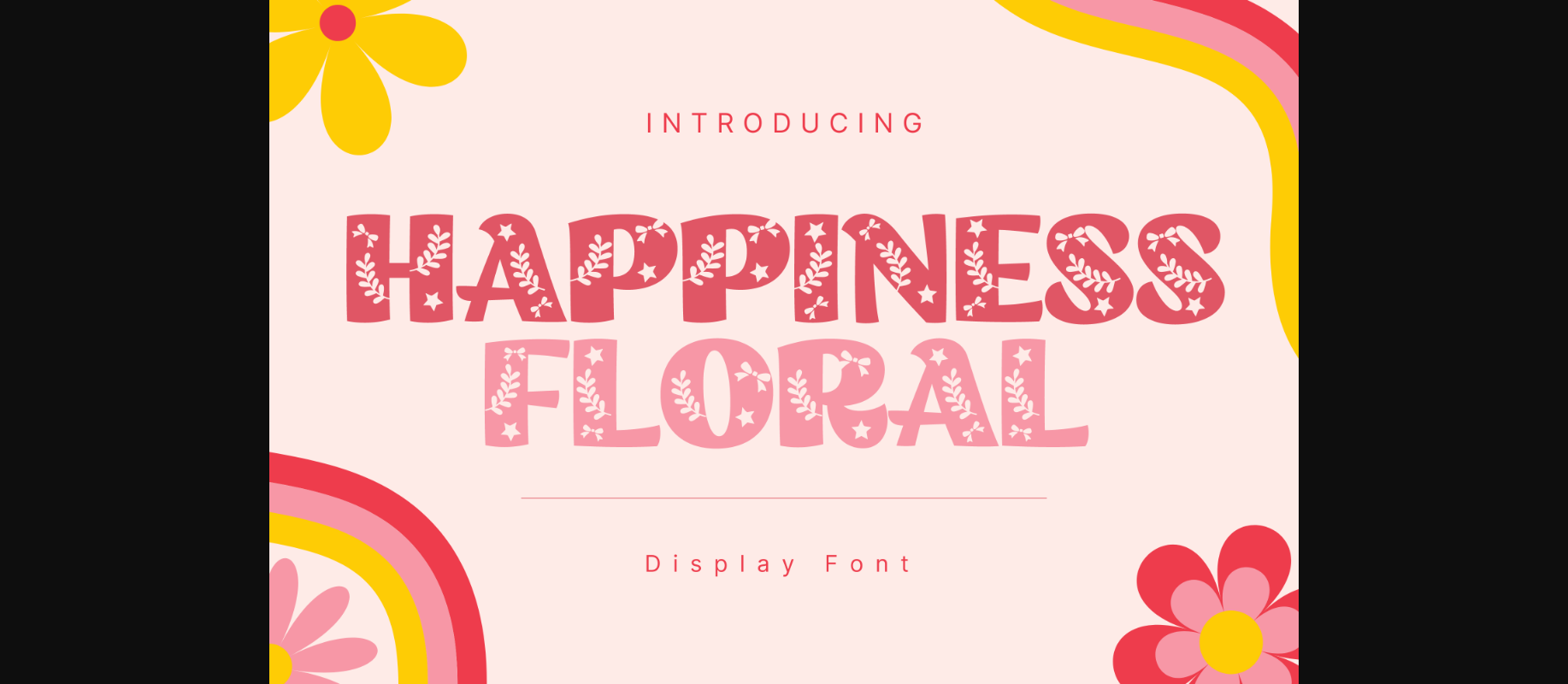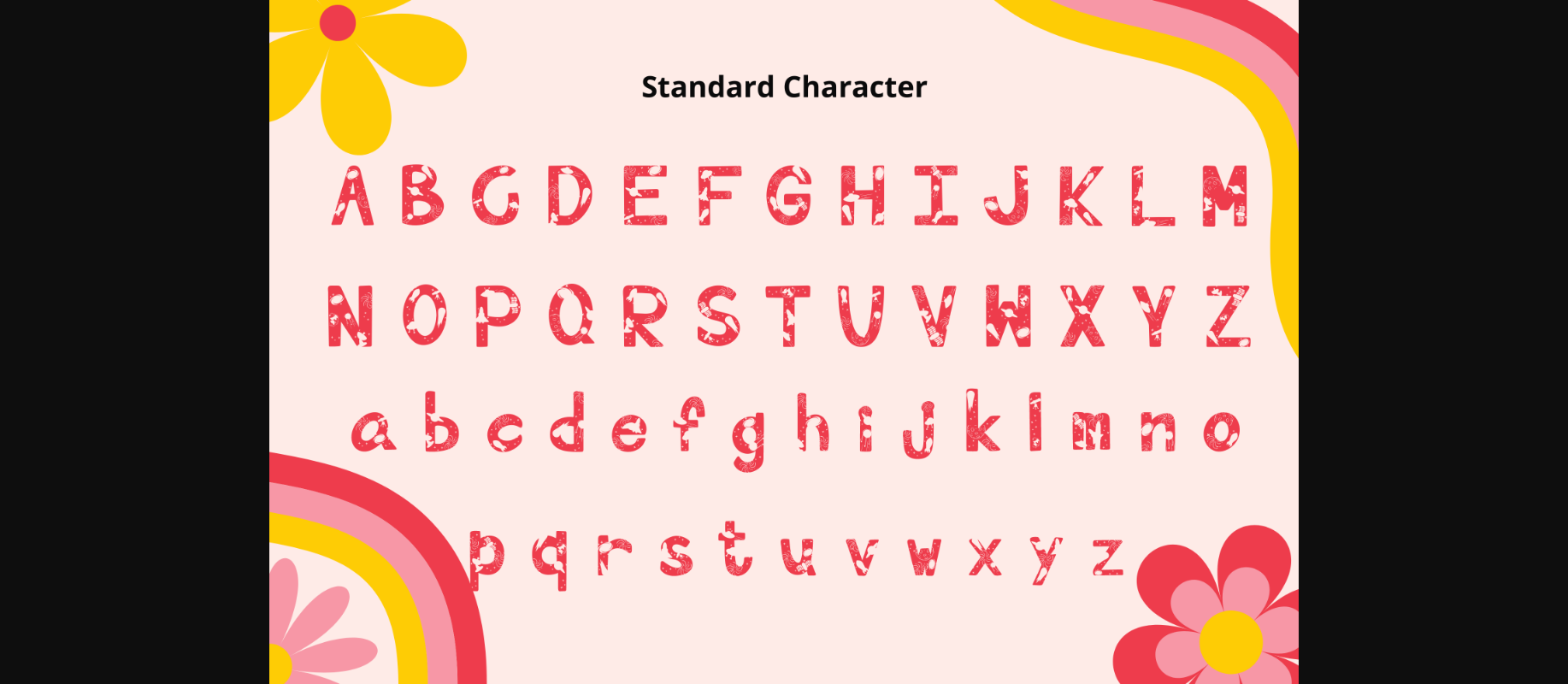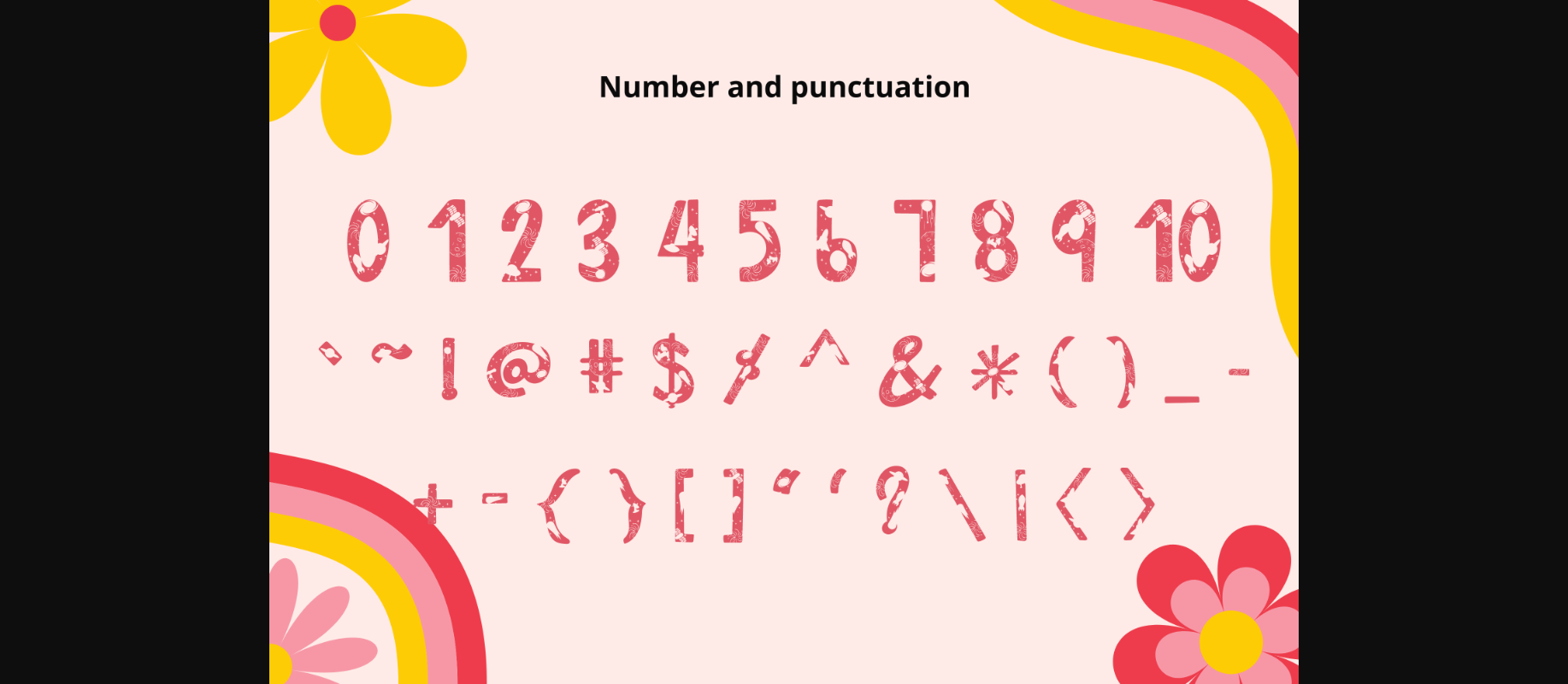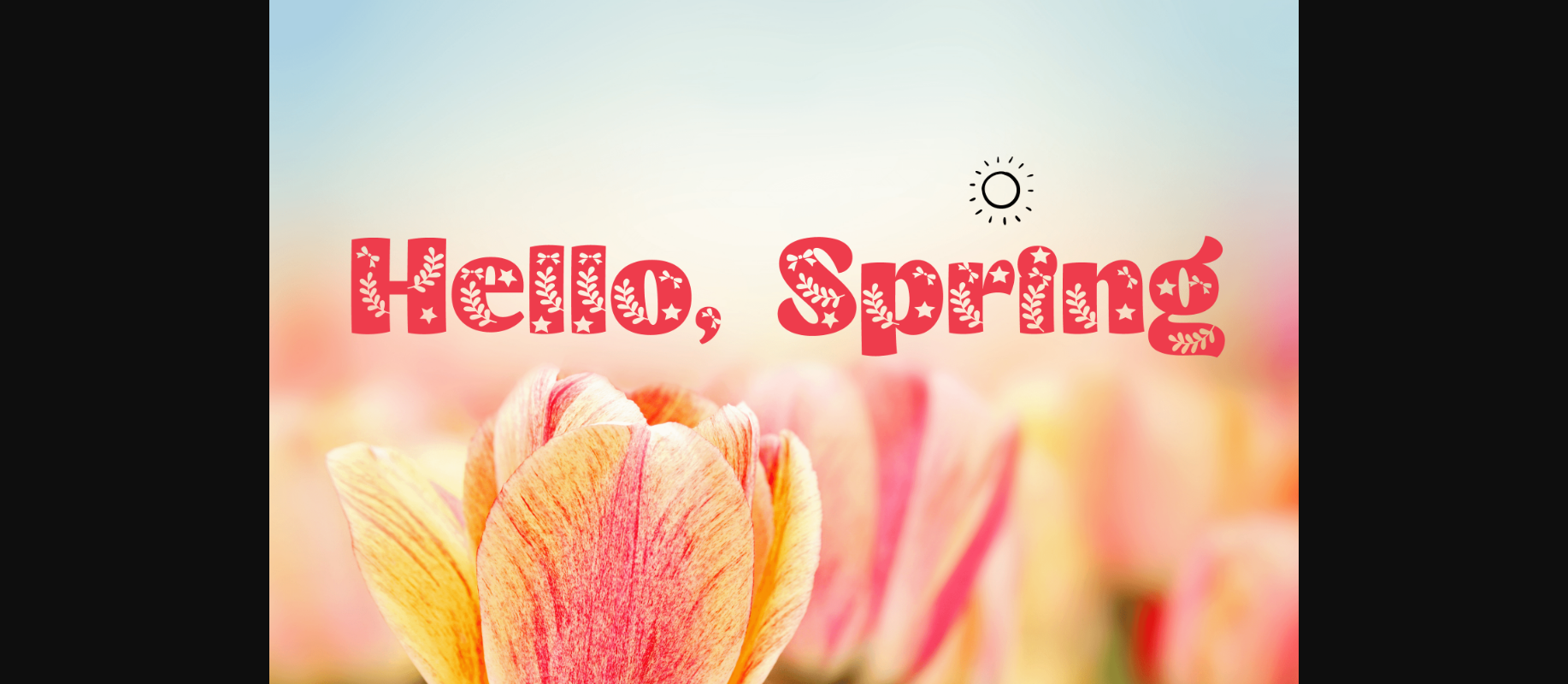
About Happiness Floral Font
Happiness Floral is a sweet and beautiful decorative font. It can easily be matched to an incredibly large set of projects, so add it to your creative ideas and notice how it makes them stand out!